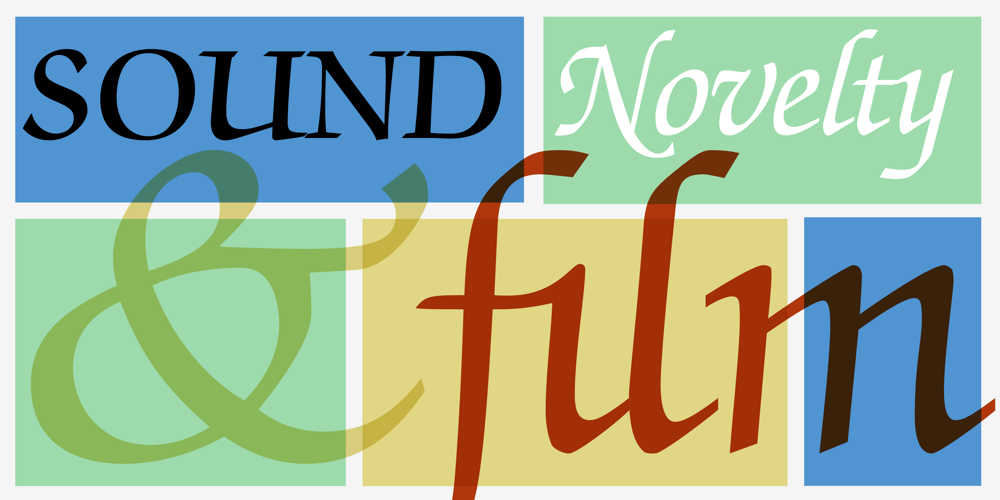
ITC Zapf Chancery Font Family was designed by Hermann Zapf and published by ITC. ITC Zapf Chancery contains 6 styles and family package options. Zapf Chancery font is a work of German designer Hermann Zapf. It was named after a typeface used in Anglo-Saxon lands during the Renaissance as well as inspired by such scripts. This font makes it possible to give printed items an individual character. The handwriting of the designer can be seen in the forms of this classic, elegant font.